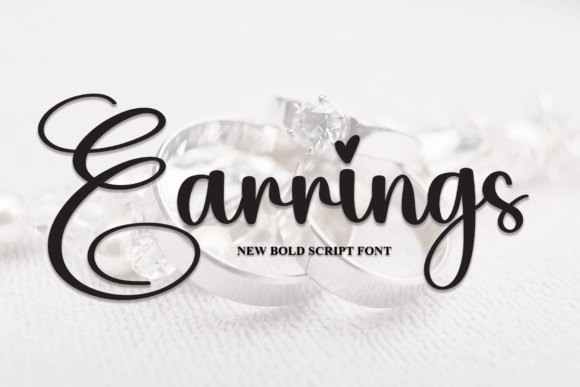
Unleash your creativity with the captivating Earrings Font, a stunning script font family that dances across your digital canvas like a delicate brushstroke. Created by the ingenious andikastudio, this font collection is the perfect haunting pick for Halloween-themed designs. These letterforms are not just mere characters; they are enchanting whispers of elegance, dripping with personality waiting to be unleashed.
With the Earrings Font, you can effortlessly craft wall displays that ooze sophistication, wedding invitations that capture hearts, and social media posts that demand attention. Transform your logos into masterpieces, design product packaging that captivates, and create labels that leave an everlasting impression. Your photography will radiate a touch of magic, watermarks will become works of art, and invitations will acquire a timeless charm.
As you embark on your creative journey, let the Earrings Font guide you, whispering its stories and igniting your imagination. Each letter is carefully crafted to exude a handwritten flair, inviting you to express your unique style. The font's versatility knows no bounds, making it the perfect complement to any project that cries out for a dash of personality.